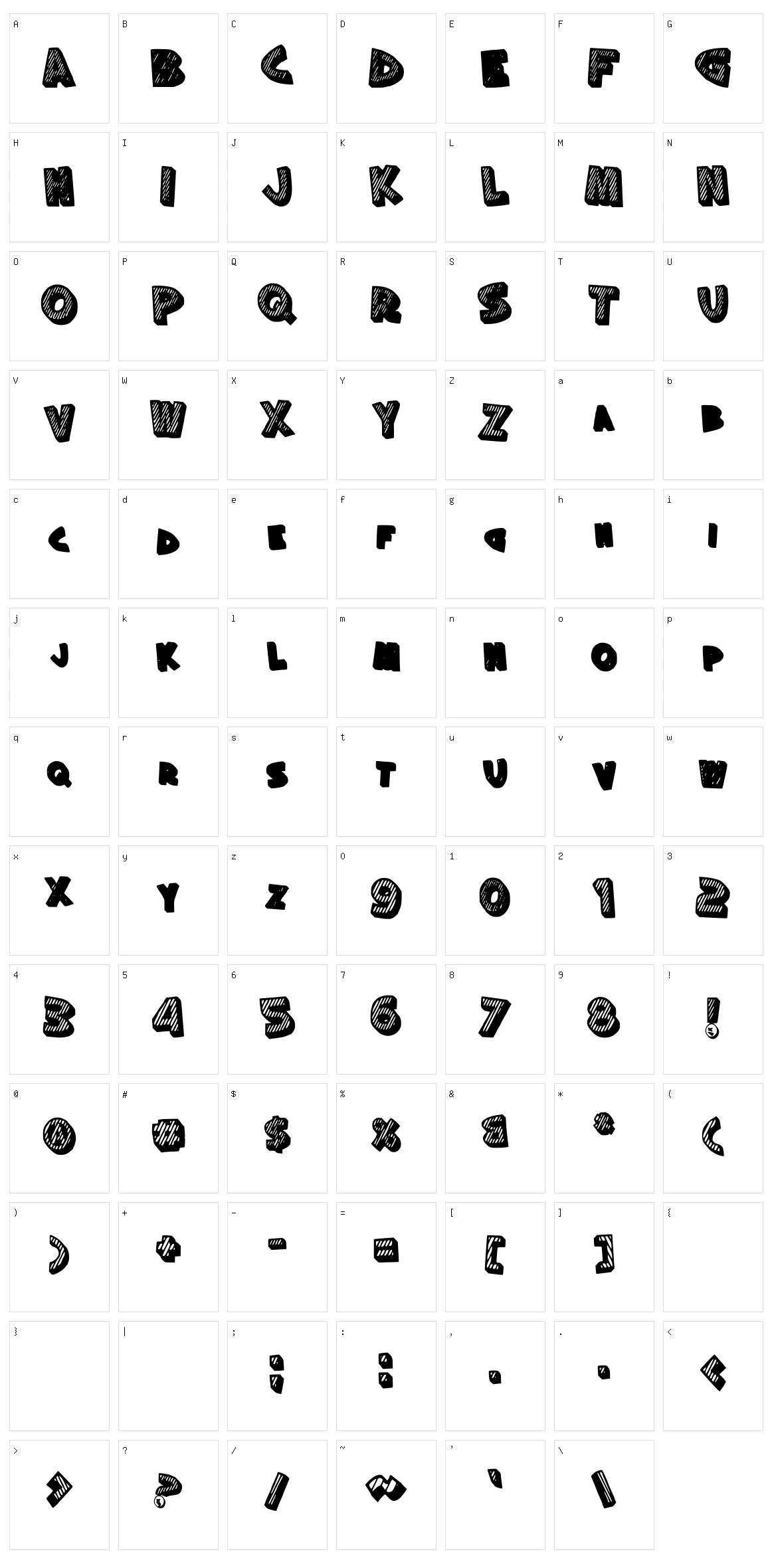
The free font Silly is carefully designed by Tucker Vickery, showcasing a thoughtful balance of creativity and usability and falls under the Cartoon font style. When you download the ZIP file, it contains only 34.63 KB of font files, making it lightweight and quick to download. Please review the license details below to understand permitted usage and distribution rights. If license information is not available, we recommend using this font for personal projects only or contacting the author directly for commercial usage permissions.